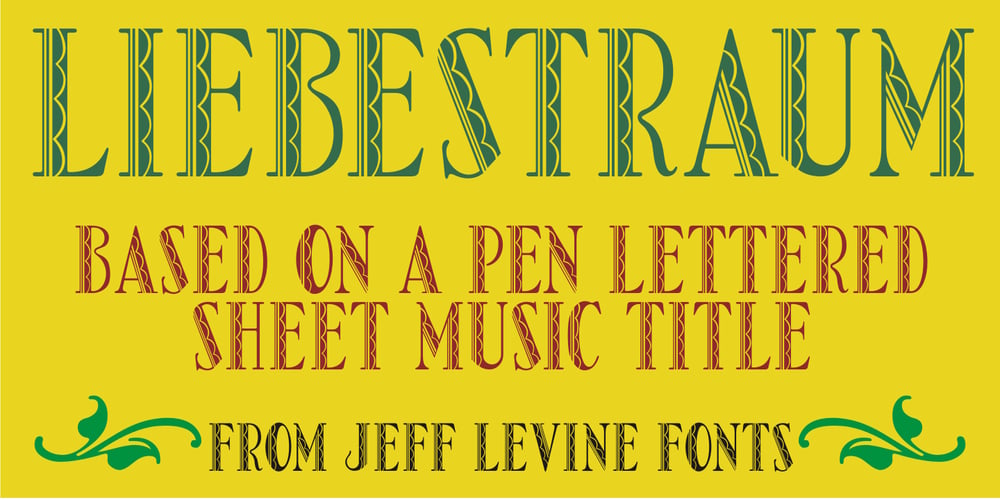
Liebestraum JNL Font Family was designed by Jeff Levine and published by Jeff Levine. Liebestraum JNL contains 1 styles and family package options. A Liebestraum, in German is a “dream of love” or “love dream”. Based on the ornate sheet music title from a 1920s edition of Franz Liszt’s composition, Liebestraum JNL captures and preserves the unique look and feel of this pen-on-paper lettering.